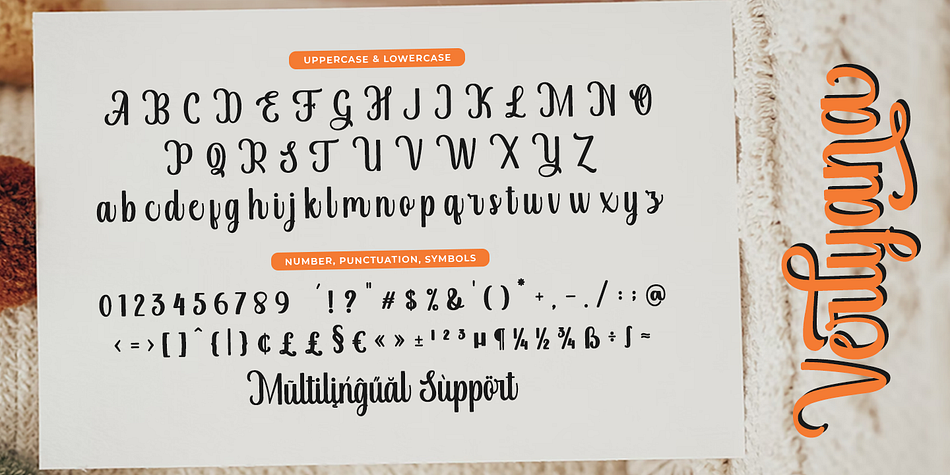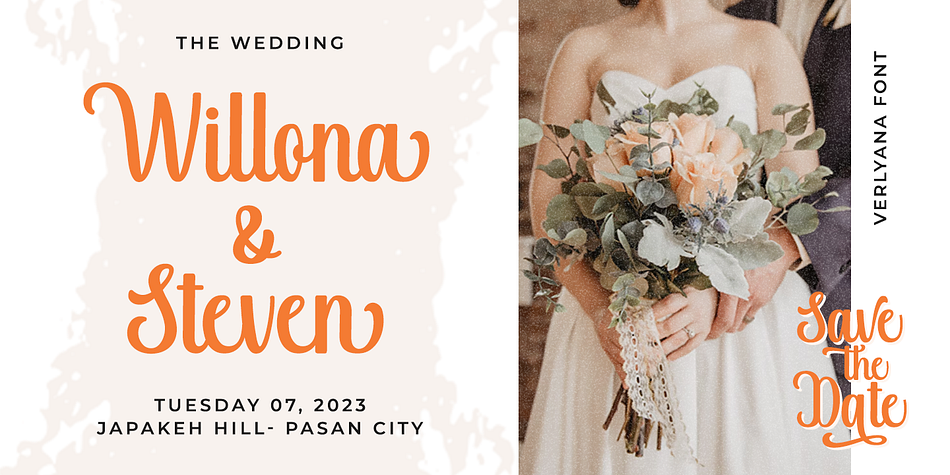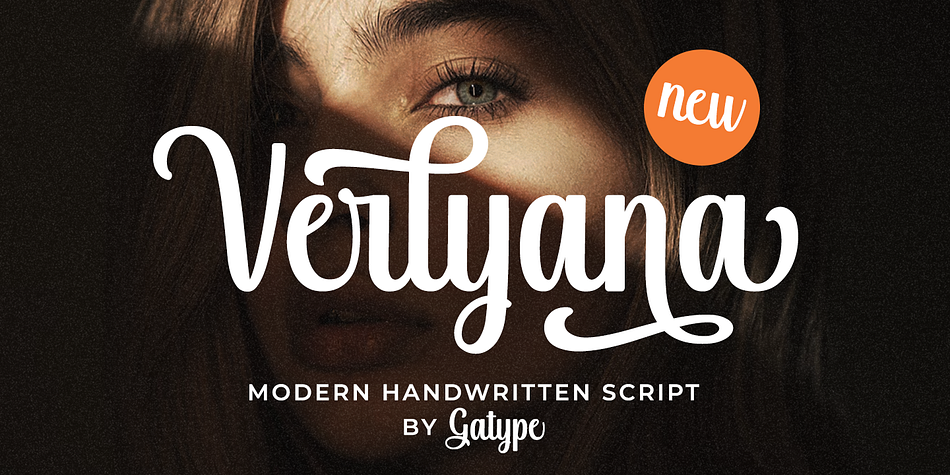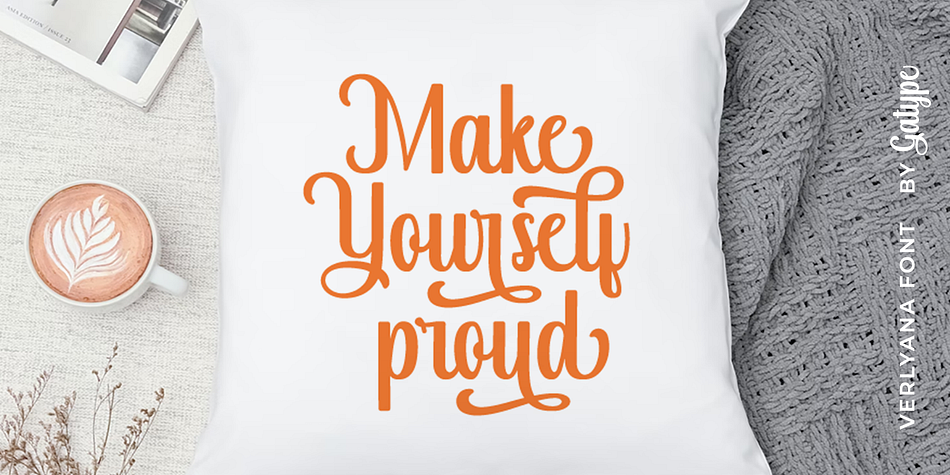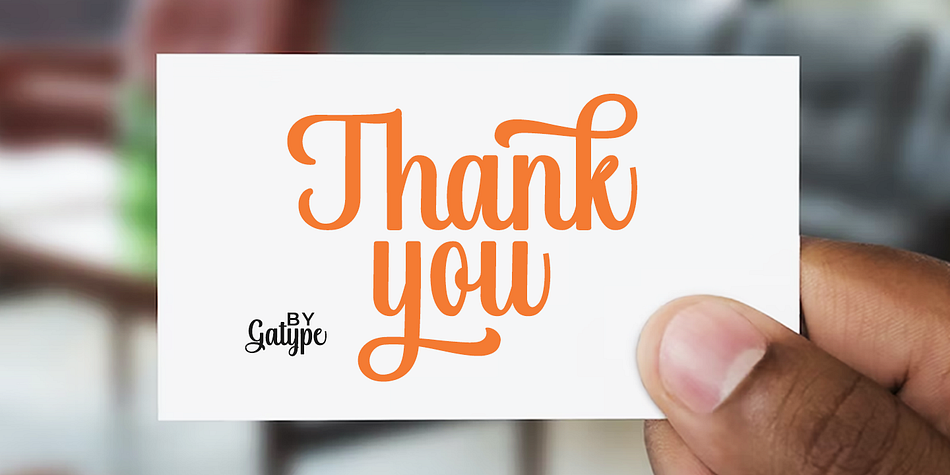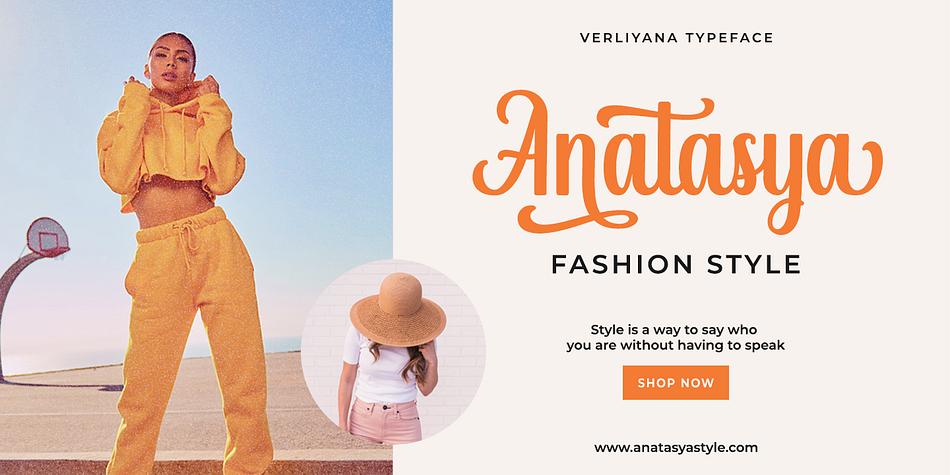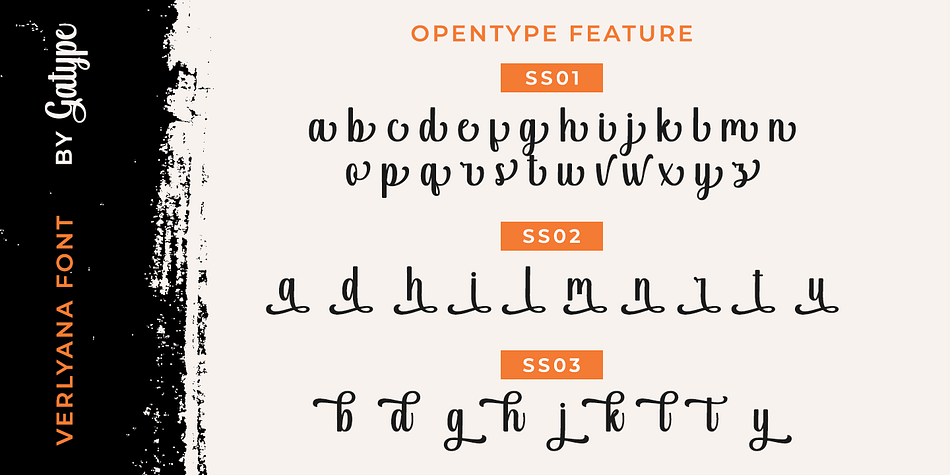
Verlyana
Verlyana is a brush script font family published by Gatype.
Verlyana is an organic, handwritten font suitable for branding, signatures, wedding invitations, promotions, product packaging, and other needs. This font is modern, simple, but still authentic. You’ll get a full set of lowercase and uppercase letters, numbers and punctuation, multilingual symbols, initial and final lowercase swashes, binders, and extra swashes. Verlyana features OpenType style alternatives, International binders and support for most Western Languages included. To enable the OpenType Stylistic alternative, you need a program that supports OpenType features such as Adobe Illustrator CS, Adobe Indesign & CorelDraw X6-X7, Microsoft Word 2010 or a later version.